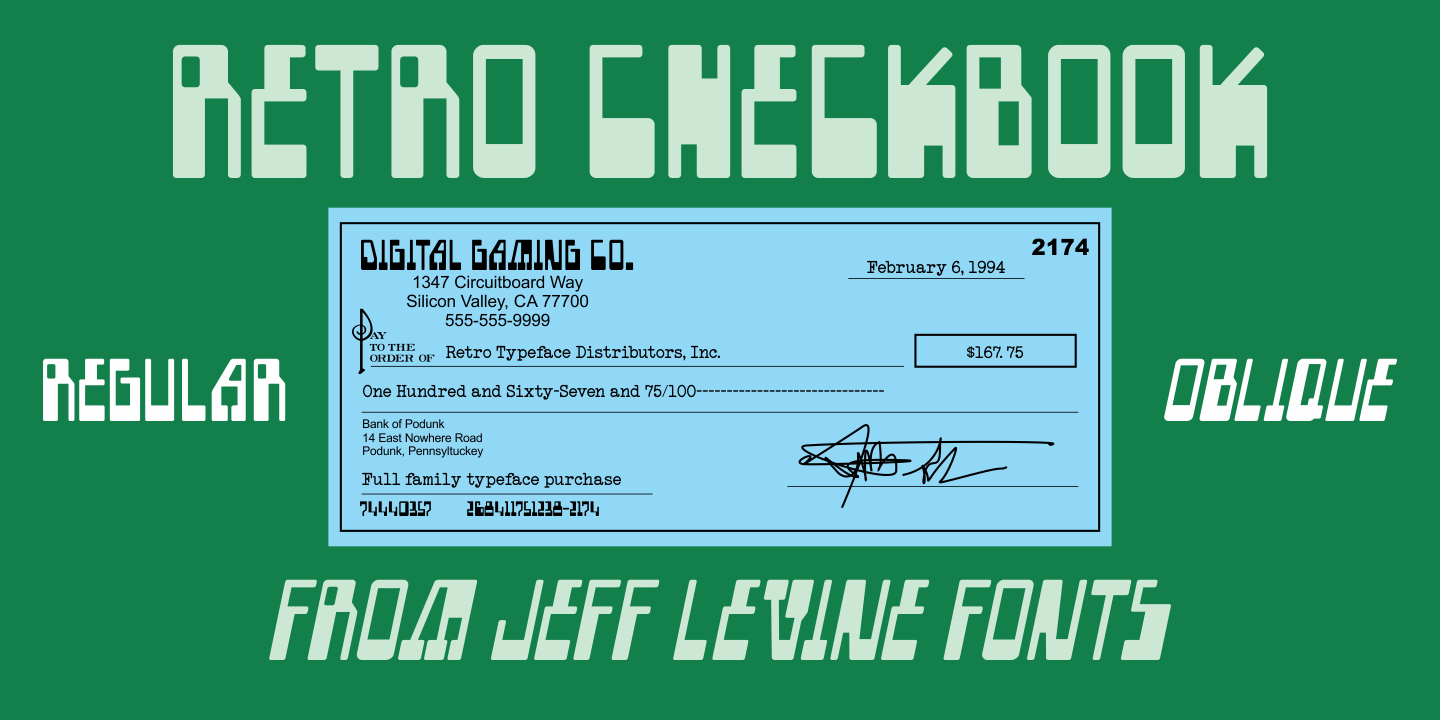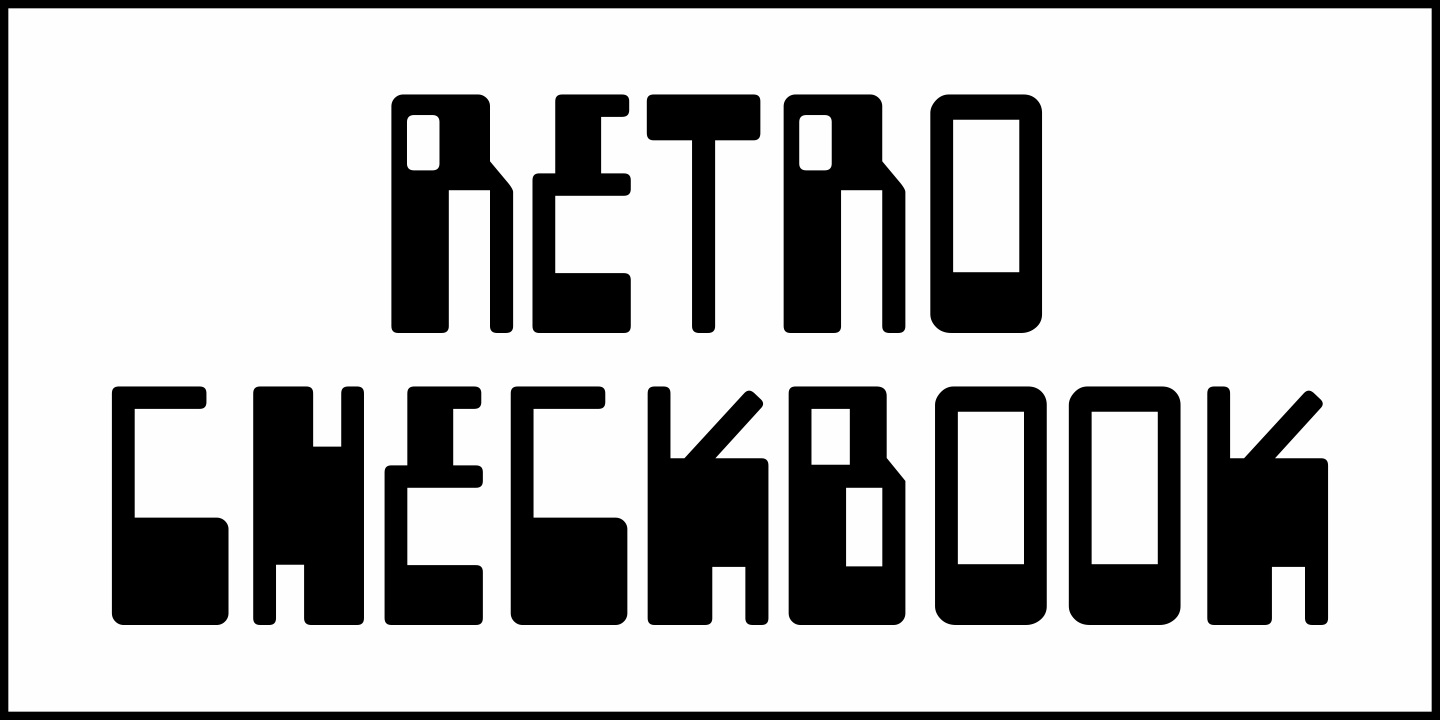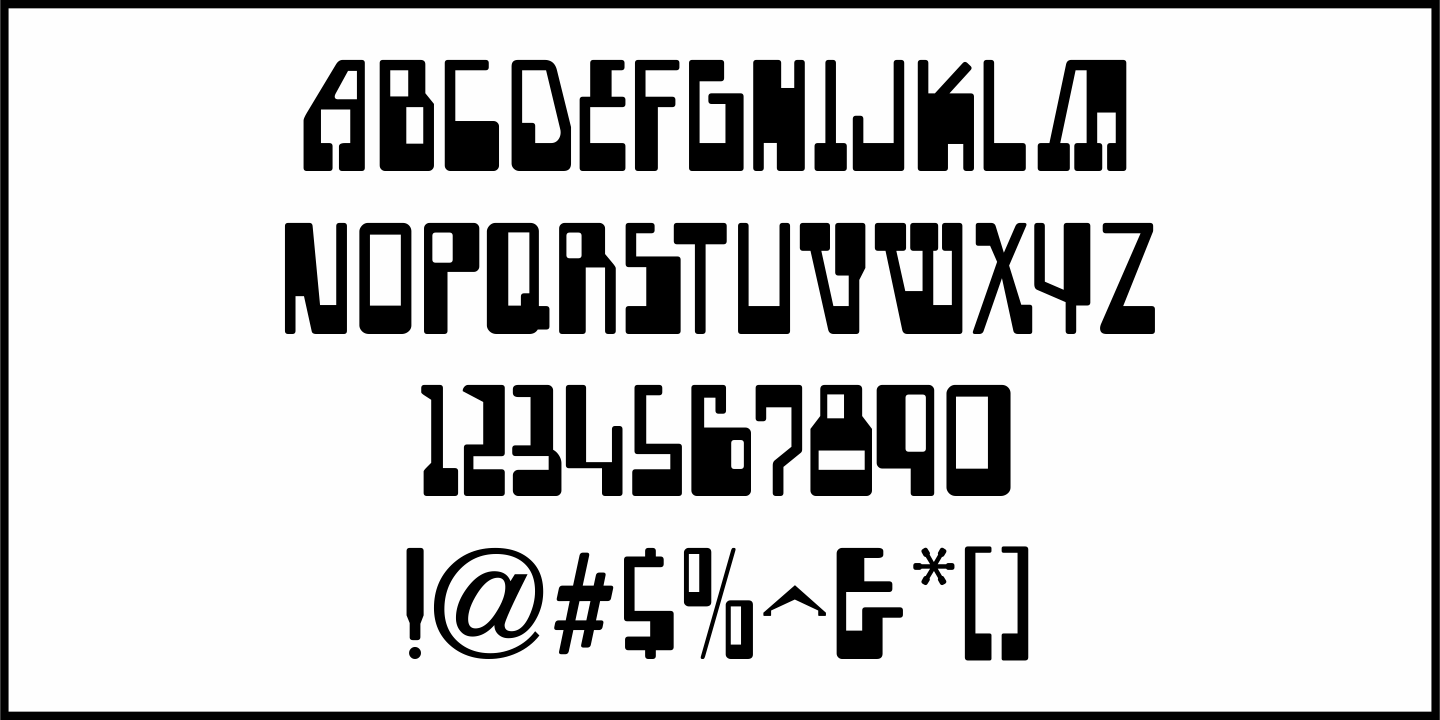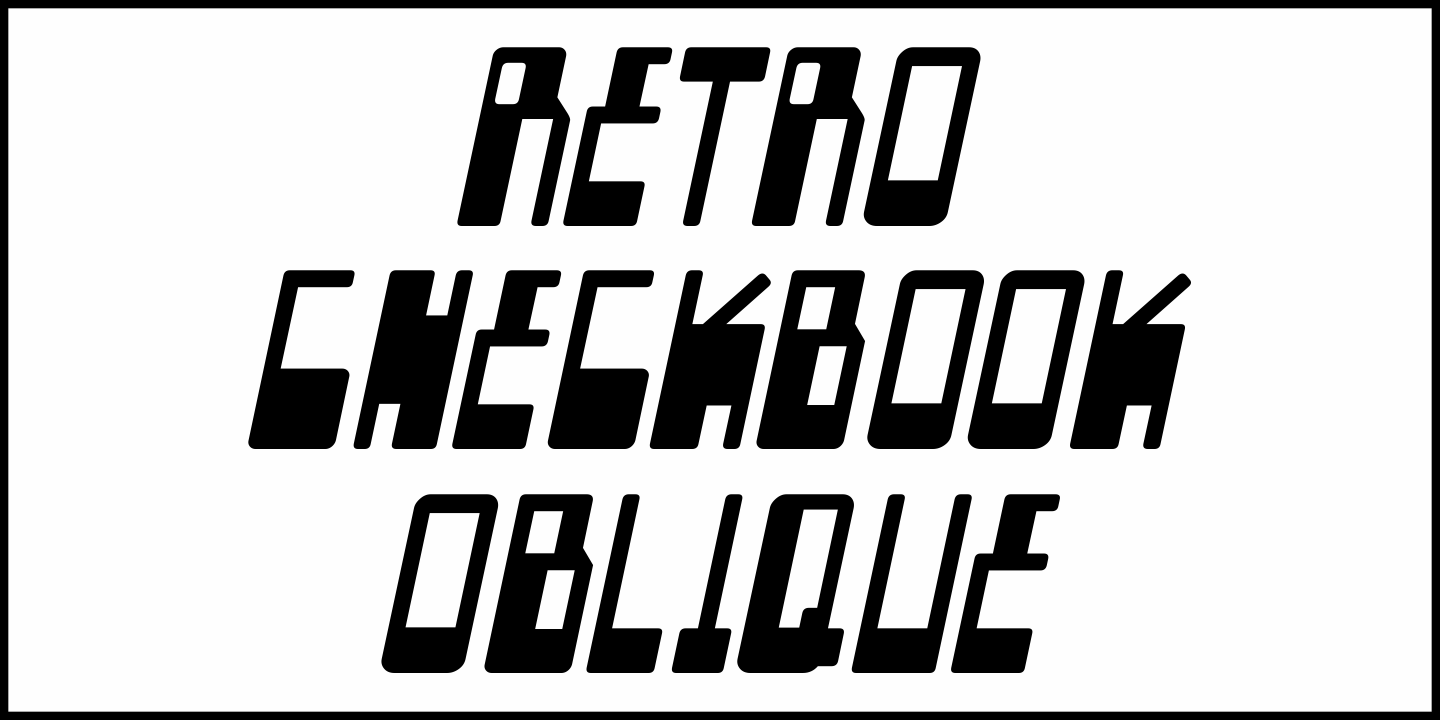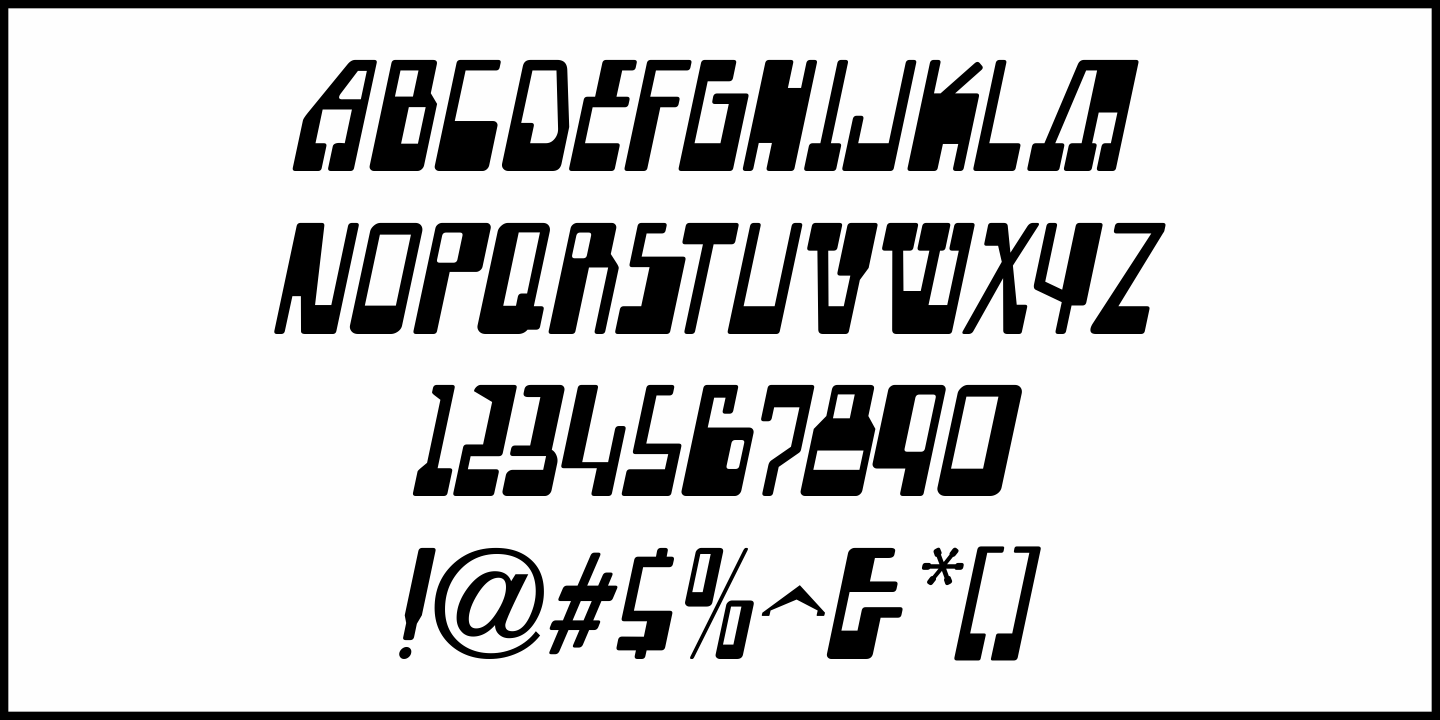
Retro Checkbook
By the 1990s, the availability of font creation software opened the door to an explosion of creativity, experimentation and exploration into the world of digital typography by amateur and professional alike. The undisputed king of the freeware fonts was Ray Larabie through his Larabie Fonts website. It seemed at the time that Ray's output was endless, and he amassed dozens upon dozens of fonts that ranged from the ridiculous to the sublime. In fact, Ray was the driving force of encouragement and a behind-the-scenes 'mentor' who helped Jeff Levine Fonts get underway in January of 2006. As Larabie's focus changed to higher-quality commercial type design with the launch of Typodermic, Inc., many of his 'less than perfect' font experiments were withdrawn and shelved.
Ray eventually turned those lost (and sometimes questionable) typefaces into a bundled zip archive released into the public domain through Creative Commons. One particular design 'Boron' (circa 1996) featured computer-oriented lettering as if etched onto a circuit board.
Running with this idea, the electronic elements were stripped away, the characters cleaned up and modified, and the font reworked in Retro Checkbook JNL, which is available in both regular and oblique versions.